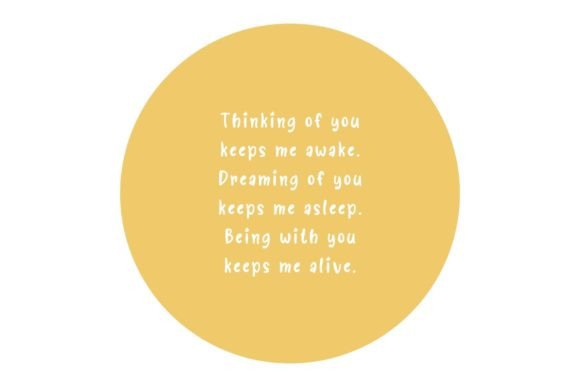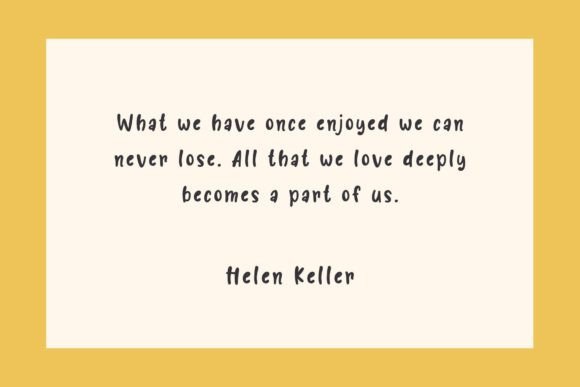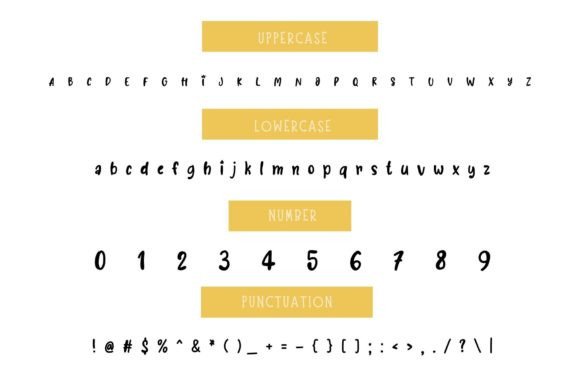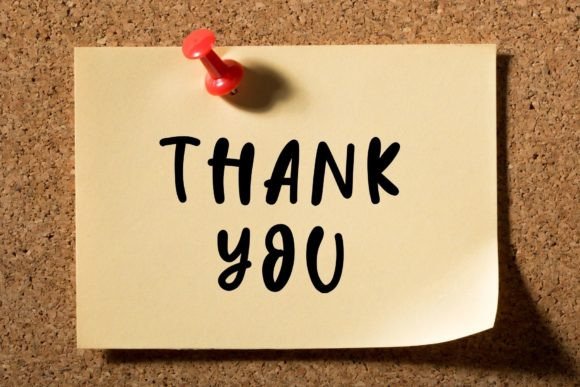
Discover the Charm of First Time Font: A Playful Typeface for Creative Projects
Are you looking for a typeface that can add a touch of youthful charm to your designs? Look no further than the First Time Font, a charming and approachable font that exudes a sense of innocence and curiosity. With its playful curves and friendly letterforms, this font is perfect for children’s books, educational materials, and creative projects that aim to capture the wonder of new experiences.
The Characteristics of First Time Font
The First Time Font is a unique typeface that is characterized by its playful and approachable design. Its letterforms are carefully crafted to convey a sense of innocence and curiosity, making it perfect for projects that aim to capture the wonder of new experiences. The font features:
- Playful curves and rounded edges that give it a friendly and approachable feel
- Clean and simple letterforms that are easy to read and understand
- A charming and whimsical design that is sure to capture the attention of your audience
Uses for First Time Font
The First Time Font is a versatile typeface that can be used in a variety of creative projects. Some of the most popular uses for this font include:
- Children’s books and educational materials: The playful and approachable design of the First Time Font makes it perfect for children’s books and educational materials.
- Creative projects: The font’s charming and whimsical design makes it perfect for creative projects such as posters, flyers, and brochures.
- Digital media: The First Time Font can be used in digital media such as websites, social media graphics, and email marketing campaigns.
Benefits of Using First Time Font
There are many benefits to using the First Time Font in your creative projects. Some of the most significant advantages include:
- Unique and eye-catching design: The First Time Font features a unique and eye-catching design that is sure to capture the attention of your audience.
- Easy to read and understand: The font’s clean and simple letterforms make it easy to read and understand, even for young children.
- Versatile: The First Time Font can be used in a variety of creative projects, from children’s books to digital media.
Tips for Using First Time Font
Here are a few tips for using the First Time Font in your creative projects:
- Use it for headlines and titles: The First Time Font is perfect for headlines and titles, where its playful and approachable design can really shine.
- Pair it with other fonts: The First Time Font can be paired with other fonts to create a unique and eye-catching design.
- Experiment with different colors and textures: The font’s charming and whimsical design makes it perfect for experimenting with different colors and textures.
In conclusion, the First Time Font is a charming and approachable typeface that is perfect for creative projects that aim to capture the wonder of new experiences. With its playful curves and friendly letterforms, it adds a touch of youthful charm to your designs. Whether you’re working on a children’s book, educational materials, or a creative project, the First Time Font is sure to be a great choice. So why not give it a try and see the difference it can make in your designs?